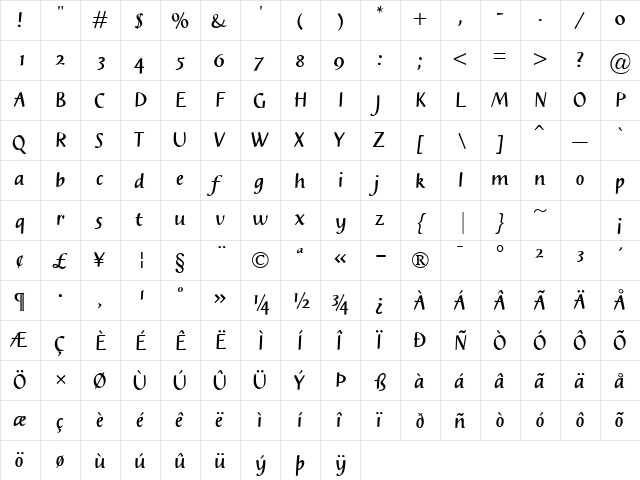
Jesper Regular
Design Context for Jesper Typeface
Jesper offers clean, dependable letterforms without strong stylistic allegiance, making it a practical choice for designers who need flexibility.